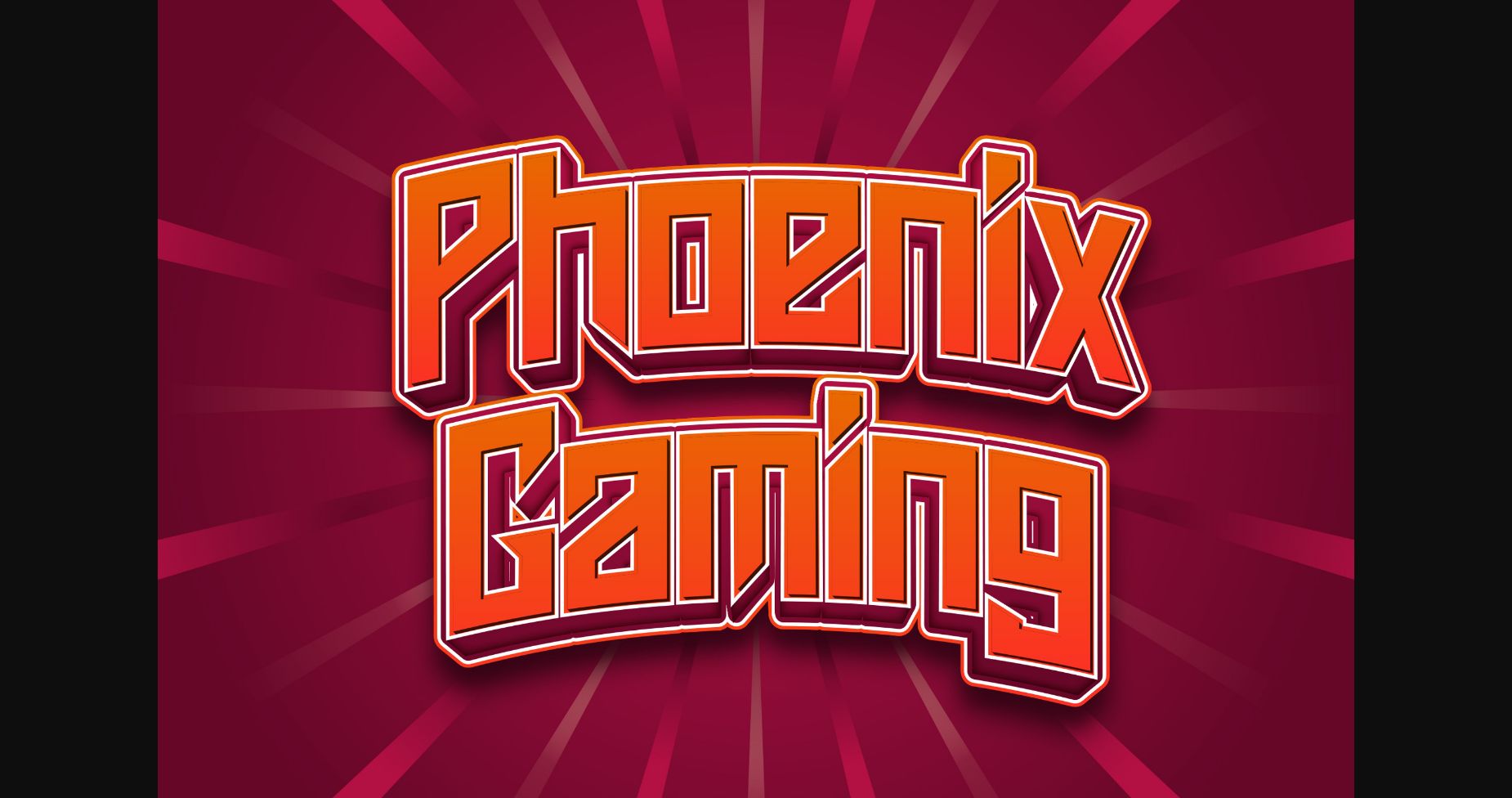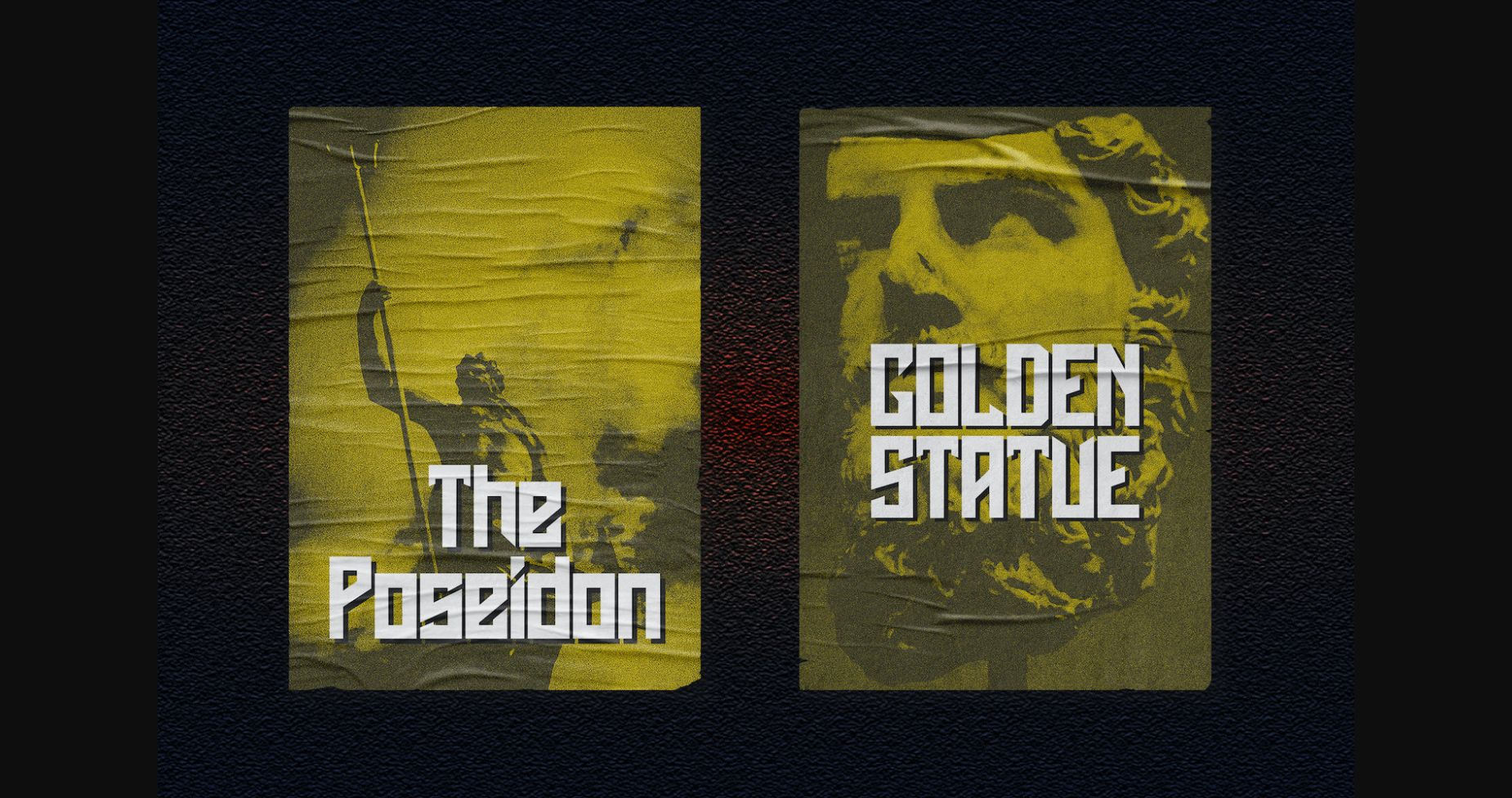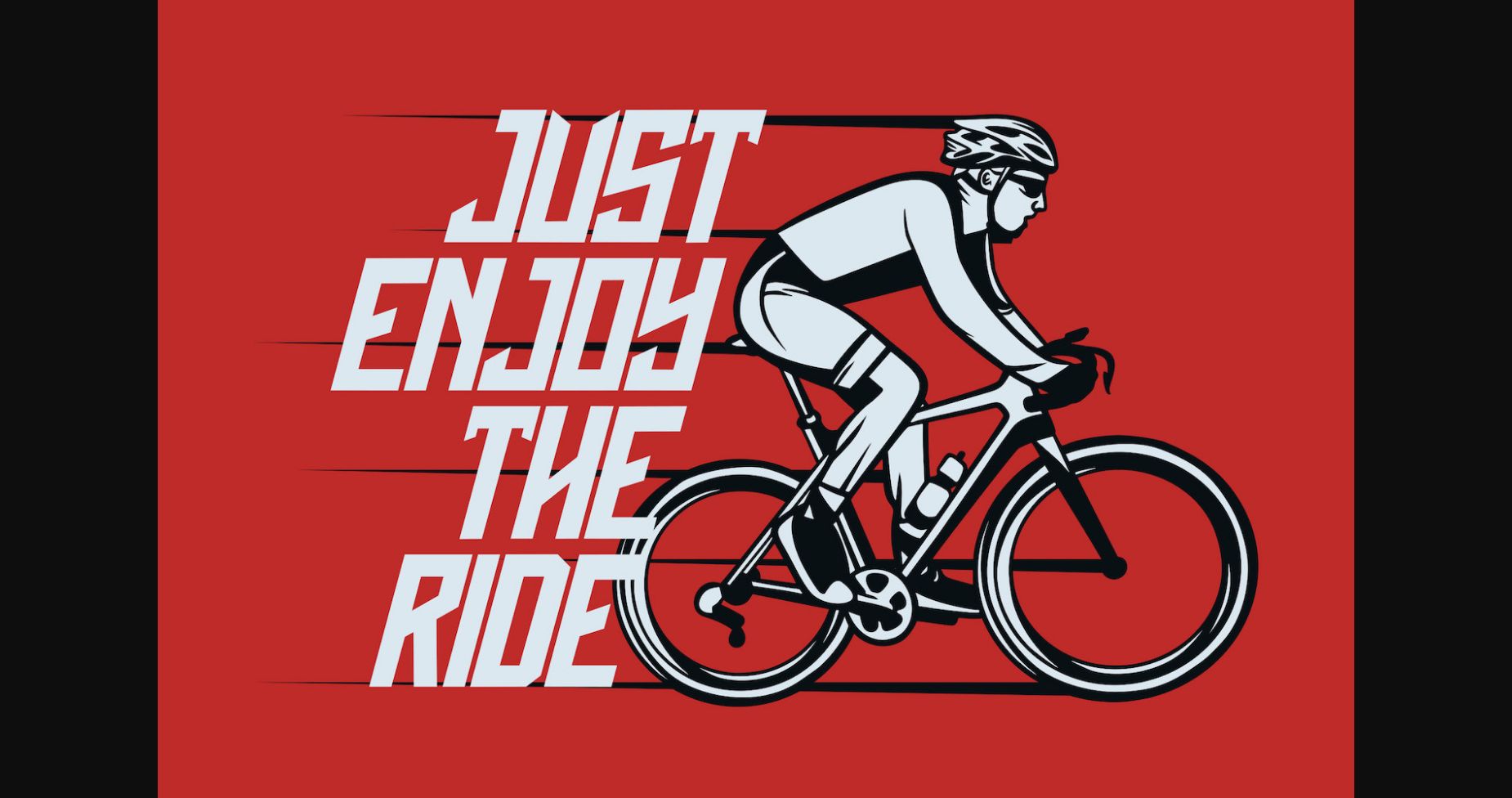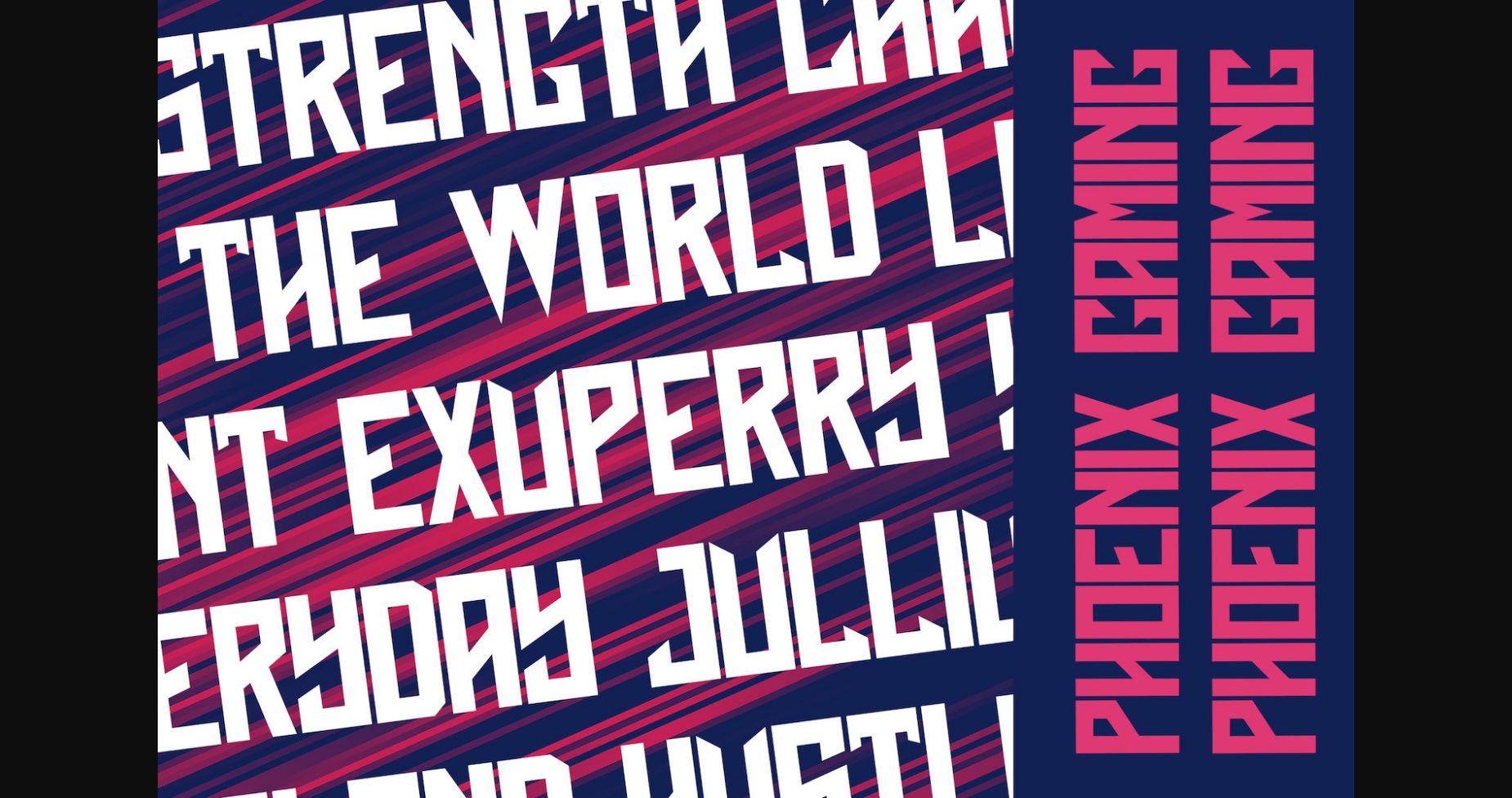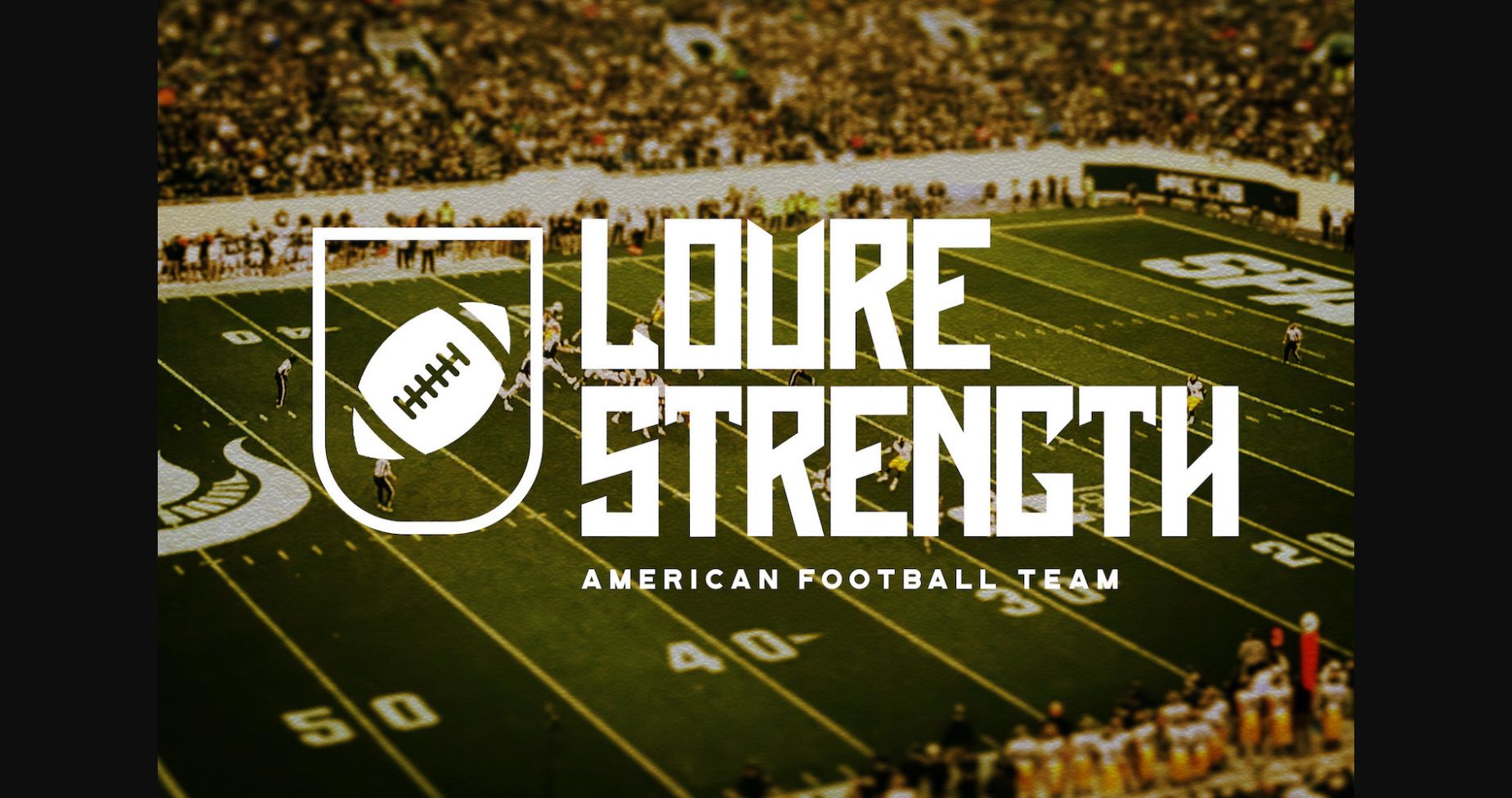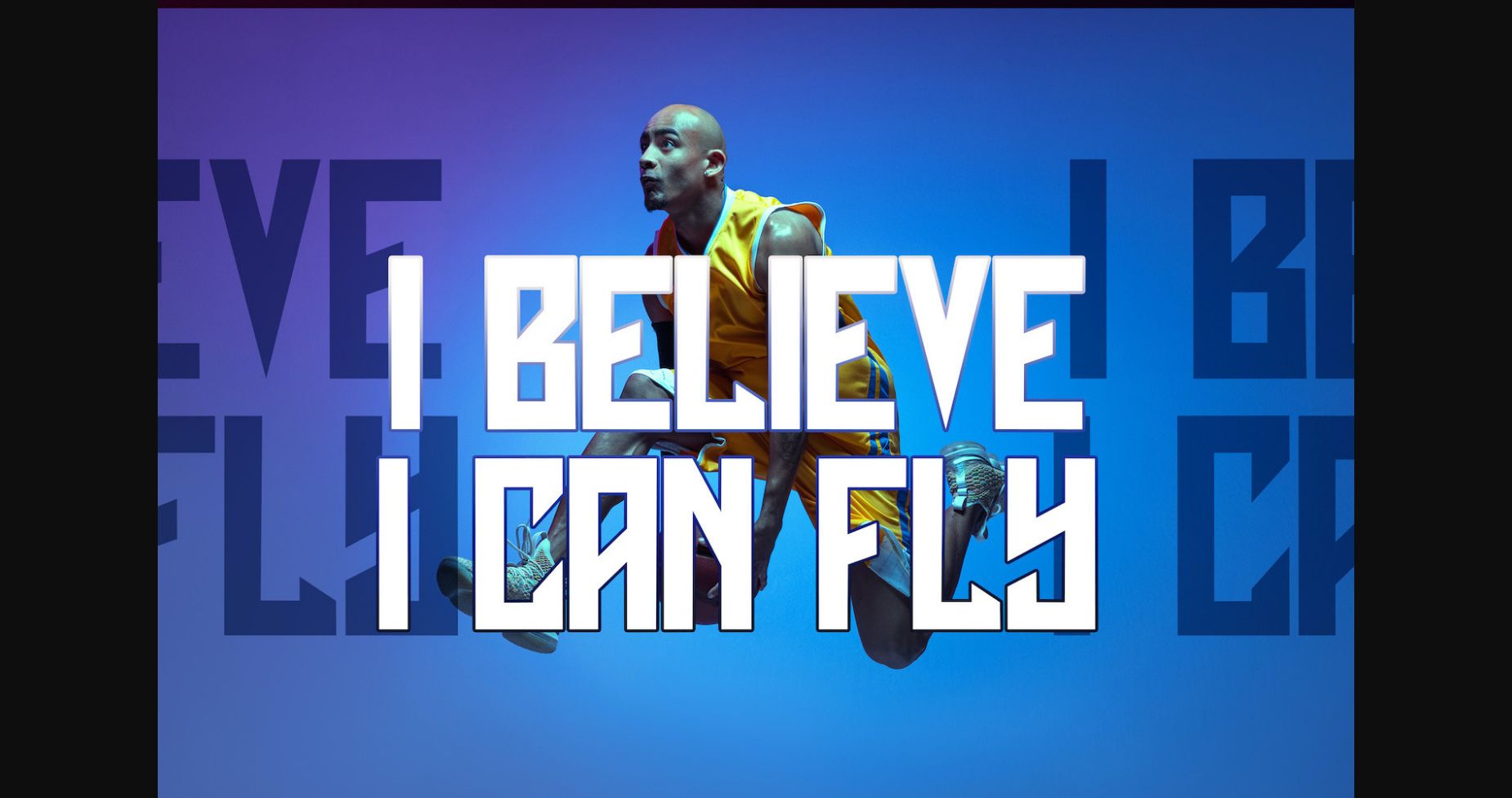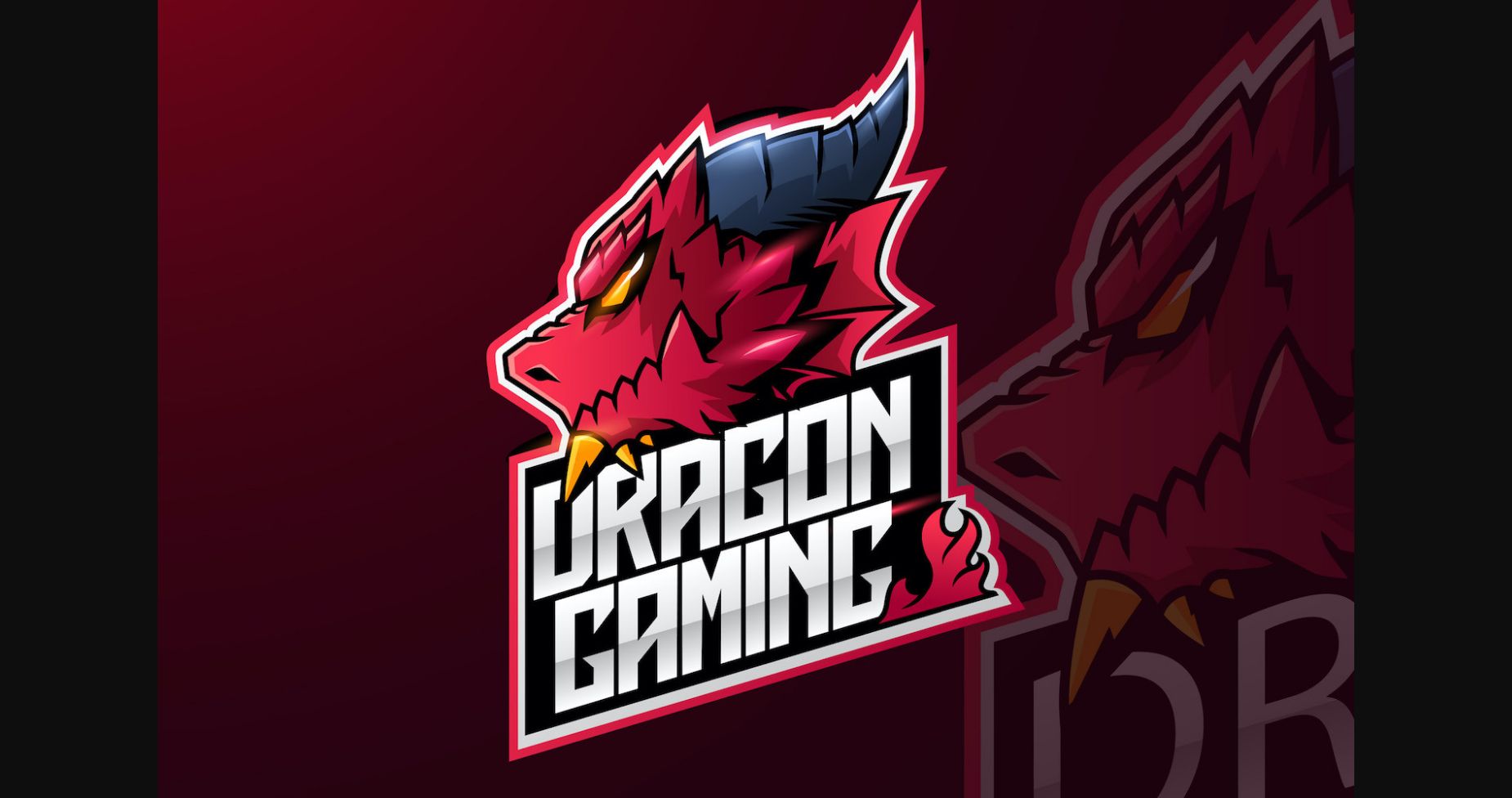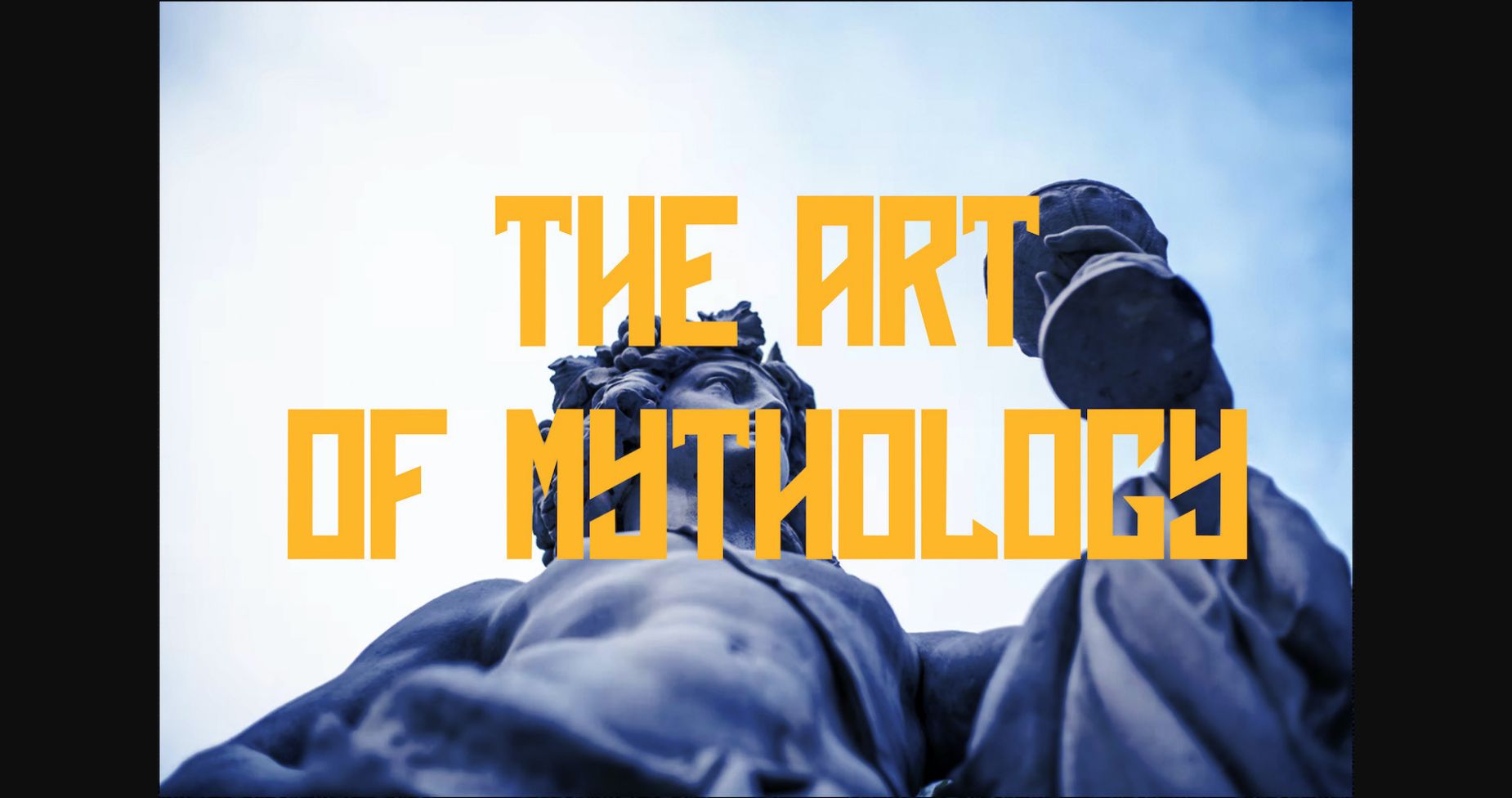
About Phoenix Gaming Font
Phoenix Gaming is a modern futuristic sans font with a bold feel. It will add a contemporary look to any design product. On top of everything, its techno style makes it the ideal font for titles, subtitles, and UI. Add it to your creative projects and make them stand out!